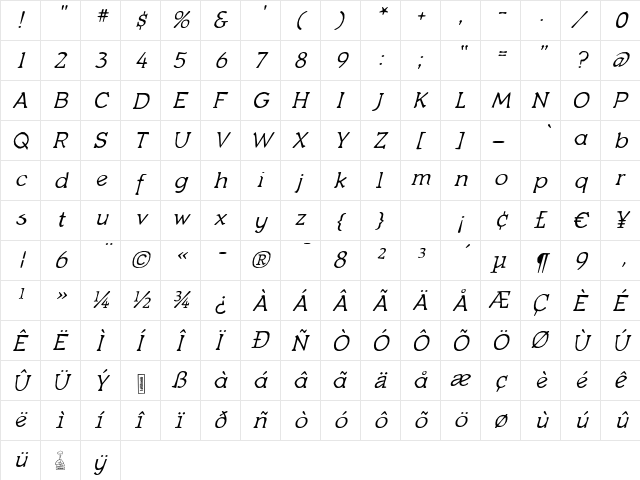
Quas Italic
Design Context for Quas Typeface
Quas offers clean, dependable letterforms without strong stylistic allegiance, making it a practical choice for designers who need flexibility. The dynamic lean of this cut emphasises speed and emphasis in any layout.
Pro Tip: Try Quas for annotation and caption copy alongside an upright companion — the contrast in angle creates a dynamic but ordered typographic system.